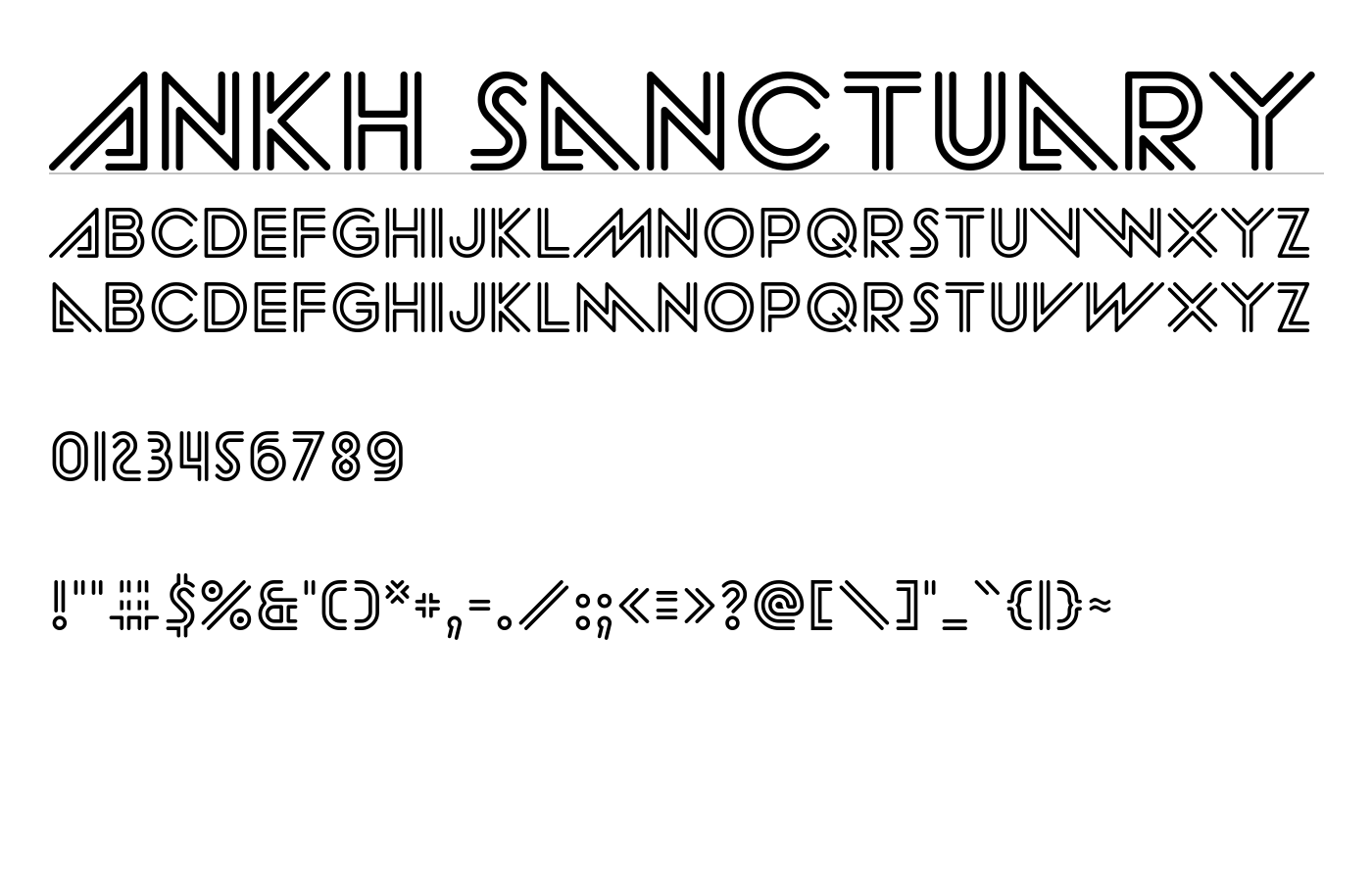
Ankh Sanctuary is a modern, geometric sans serif font characterized by its thin, double-lined strokes and sharp angles, creating a futuristic and architectural feel. With its playful yet structured letterforms, including unique stylized elements like the triangular 'A' and open curves in letters like 'C' and 'G', it exudes a vibrant, avant-garde personality ideal for bold headlines, logos, and creative branding that seeks a modern, tech-inspired edge. This font stands out best in large sizes where its intricate line details can shine, making it perfect for eye-catching posters, fashion branding, or editorial design where style and innovation are key.